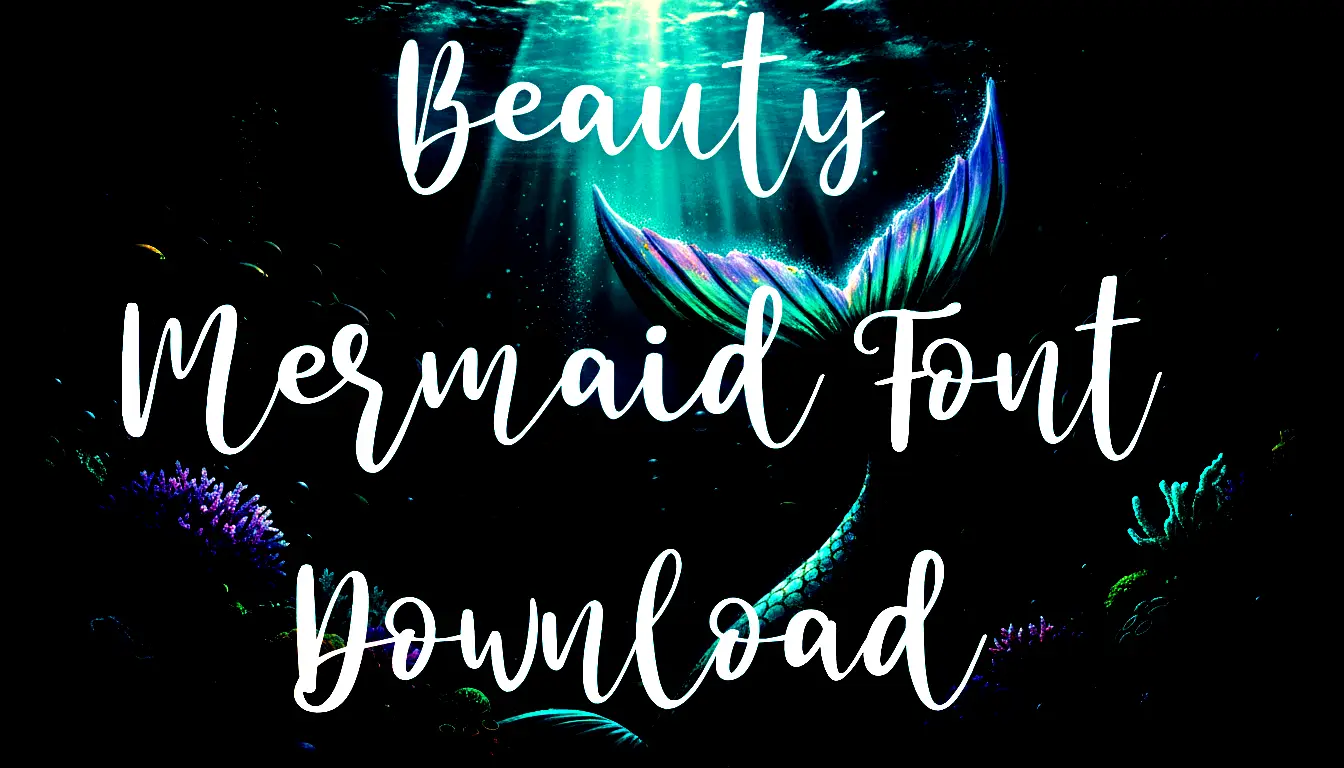
Beauty Mermaid Font
Beauty Mermaid
Beauty Mermaid is a script font made by Sarwo Edhi Prayitno. Its flowing, pen-made letters give names and short phrases a personal, polished look. It's a free download, and you can try it with your own text in the preview above first.
What You Can Type With Beauty Mermaid
You get every letter from A to Z in both cases and all the numbers from 0 to 9, which means Beauty Mermaid can handle full sentences, dates and prices. Common punctuation such as &, !, ? and @ is included as well. It also has the accented letters you need for Spanish, French, German, Portuguese and Italian.
Where Beauty Mermaid Works Best
Beauty Mermaid is a natural fit for wedding invitations, logos and signature-style headings. Script fonts read best in short bursts, so keep it to names, titles and one-line quotes. Skip all caps: script capitals are drawn to start a word, not to fill one.
Does Beauty Mermaid support accented letters?
Yes. Beauty Mermaid includes the accented letters needed for Spanish, French, German, Portuguese and Italian, so it works for more than just English.